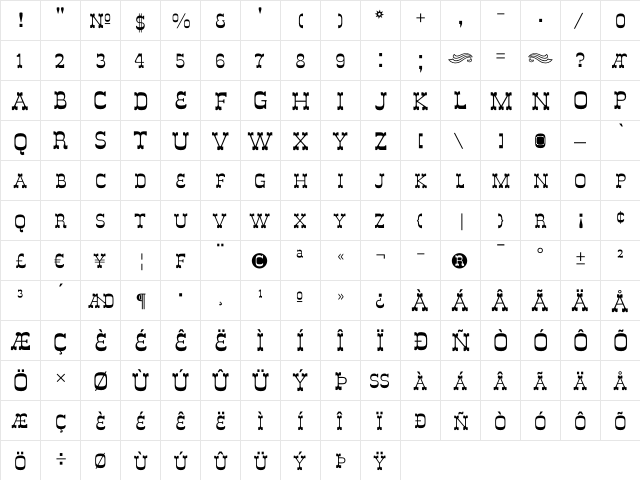
DeLouisvilleSmallCaps Regular Font Preview
DeLouisvilleSmallCaps Regular
DeLouisvilleSmallCaps Regular Font Details
| Designer | James Arboghast - S E N T I N E L T Y P E |
Design Context for DeLouisvilleSmallCaps Typeface
DeLouisvilleSmallCaps is a composed and adaptable typeface that performs quietly and consistently across a wide range of design contexts.